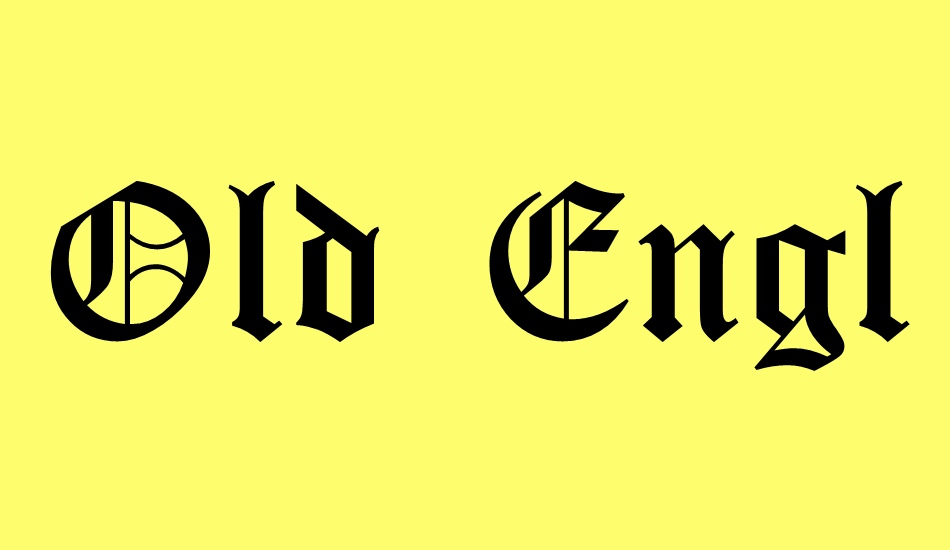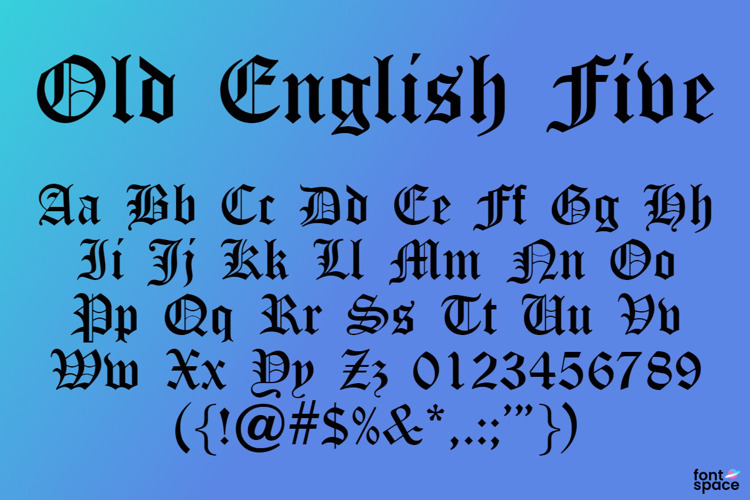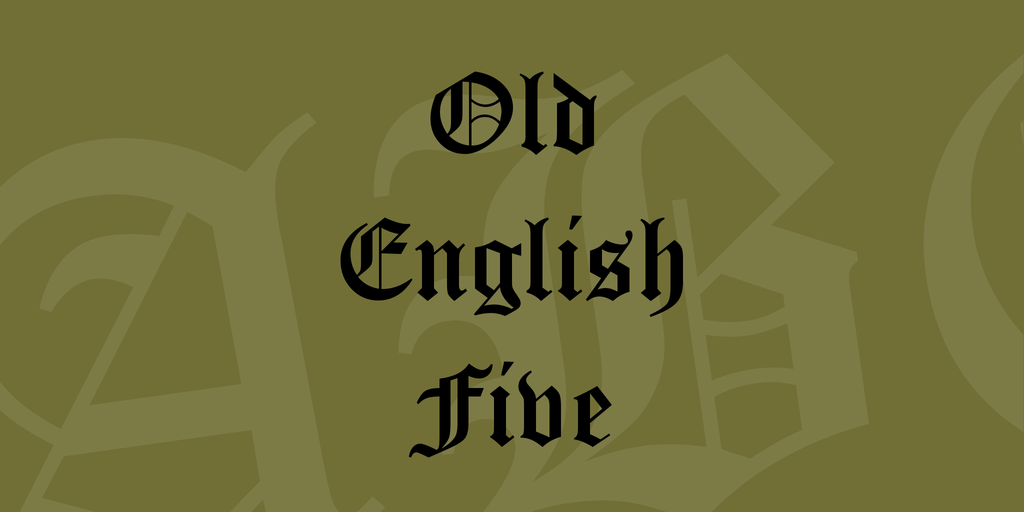
Old English Five Font
Old English Five Font - It is also known as blackletter or medieval calligraphy. Download and install the old english five font for free from ffonts.net. Experience the timeless beauty of old english with our free collection of fonts. ️ this font has been downloaded 8,000+ times. Enjoy crafting the perfect look with classic lettering.
It Is Also Known As Blackletter Or Medieval Calligraphy.